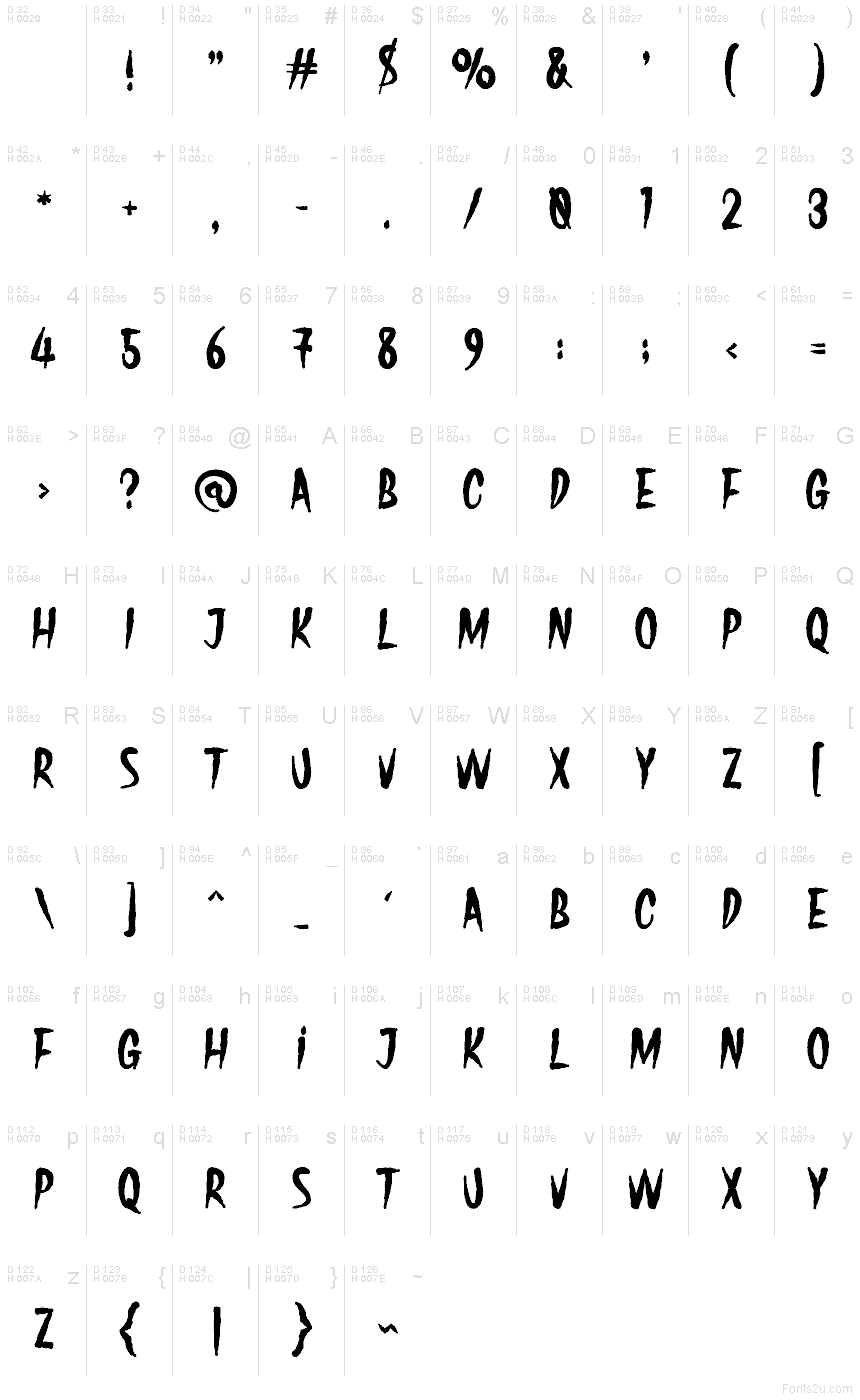
Hallo Boo
Hallo Boo font by Gilang Ternadho is a free Halloween display font built for spooky headlines that still read fast. Its inky, hand-brushed strokes taper to ragged tips, with a jittery rhythm that feels like letters scratched on a fogged window—creepy, but clear. When you need instant October energy without muddy shapes, this delivers.
Using Hallo Boo, your titles pop on party invites, haunted house posters, trick-or-treat bags, YouTube thumbnails, social posts, banners, and stickers. The chunky forms hold up at large sizes and stay legible on dark, textured backdrops. For a clean contrast, pair this free font with a simple sans-serif for body copy, and tighten the tracking slightly to keep the scare factor punchy.